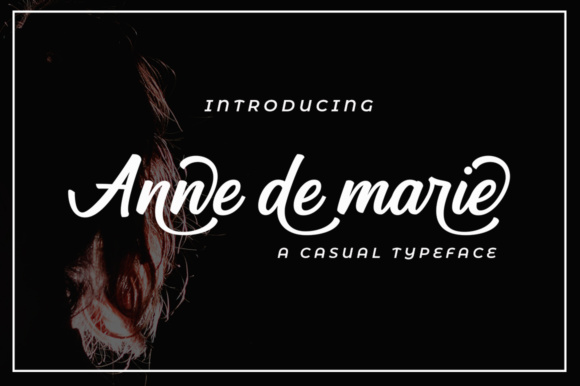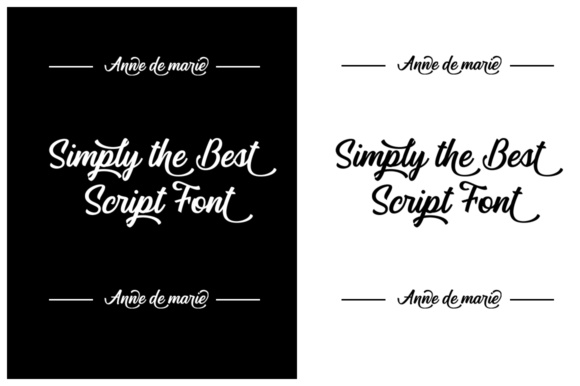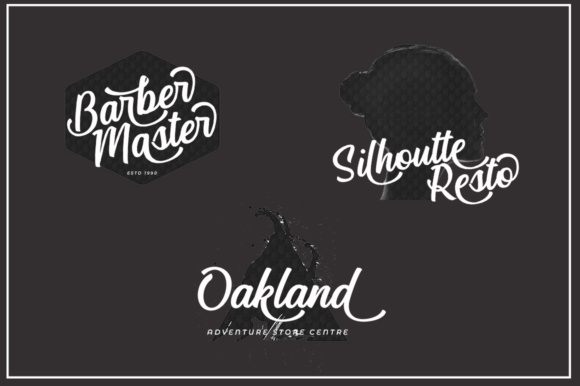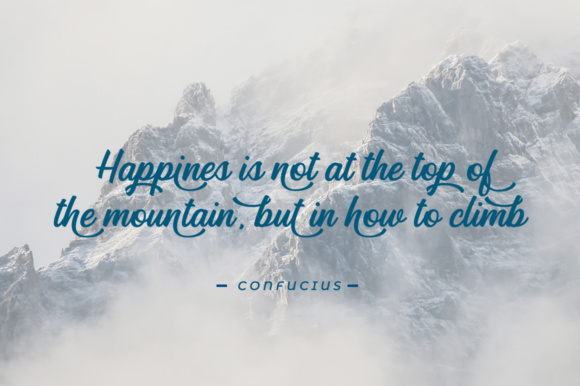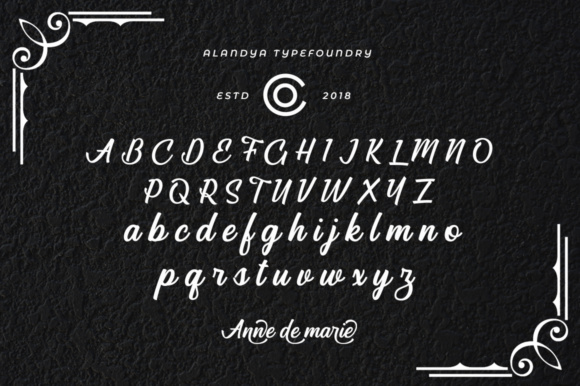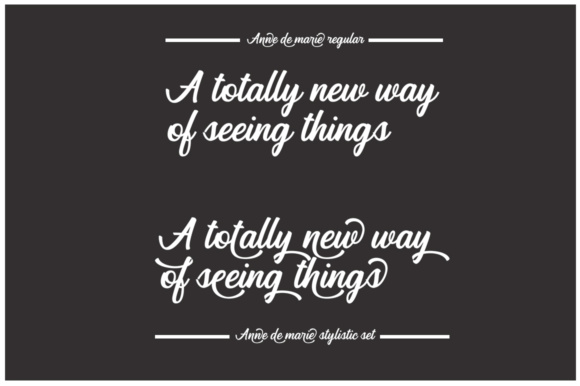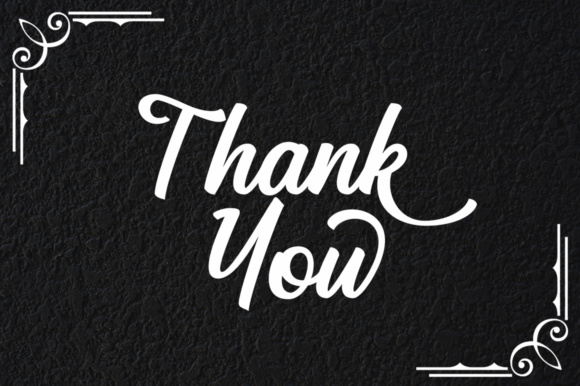
Anne De Marie Font
The Anne de marie is a striking typeface. It offers a wide range of options for creating logos, titles and titles, but is also suitable for books, editorials, packaging, advertising, brand imaging and more.